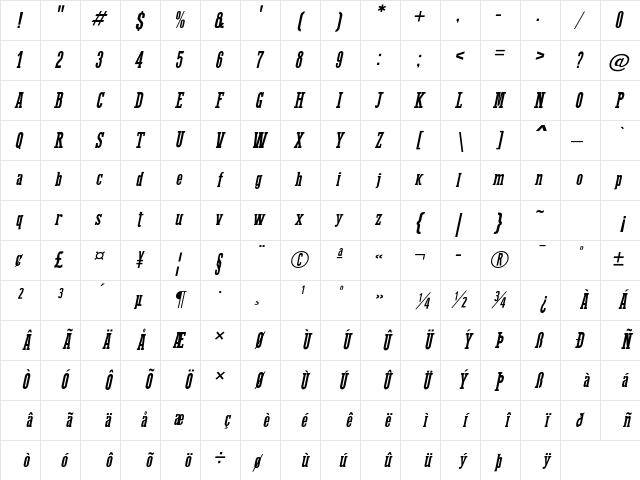
Western Bang Bang Clean Italic Free Font
Western Bang Bang Clean Italic
Complete Western Bang Bang Clean Italic glyph index. Displaying only characters natively supported by Western Bang Bang Clean Italic font.
Design Context for Western Bang Bang Clean
Western Bang Bang Clean echoes the hand-painted signage and woodblock typography of the American frontier, with a warm, rugged personality. The slanted form adds forward momentum and visual energy.
Font Pairing: Combine Western Bang Bang Clean with a simple slab or neutral sans - period-accurate companions reinforce the vintage feel without competing for attention.
Pro Tip: Use Western Bang Bang Clean for short, impactful bursts of text - it shines in poster headlines and product names rather than extended copy.